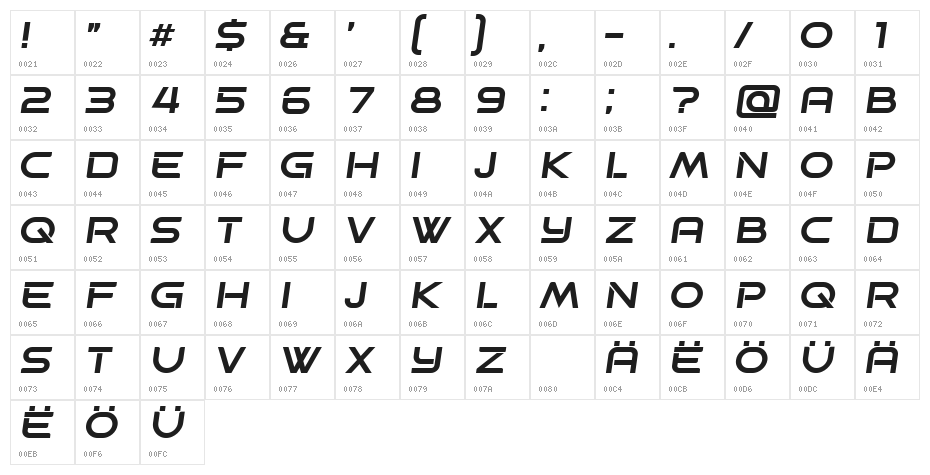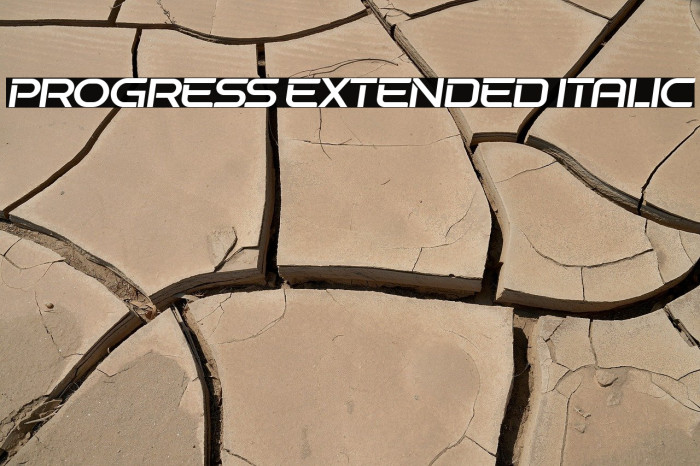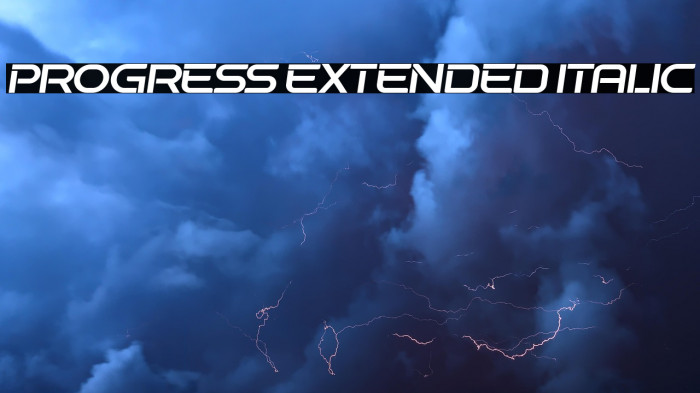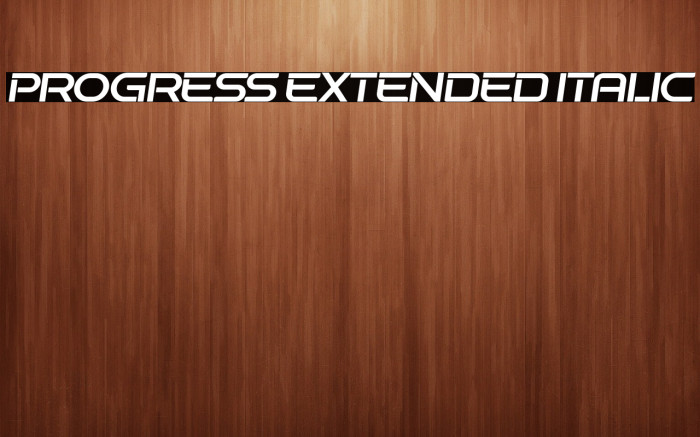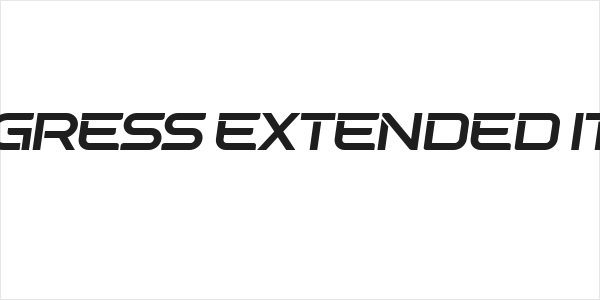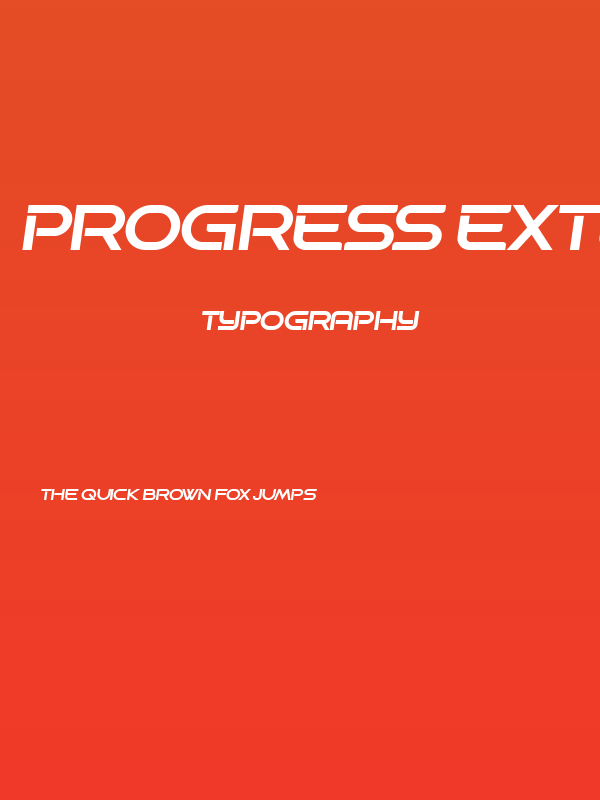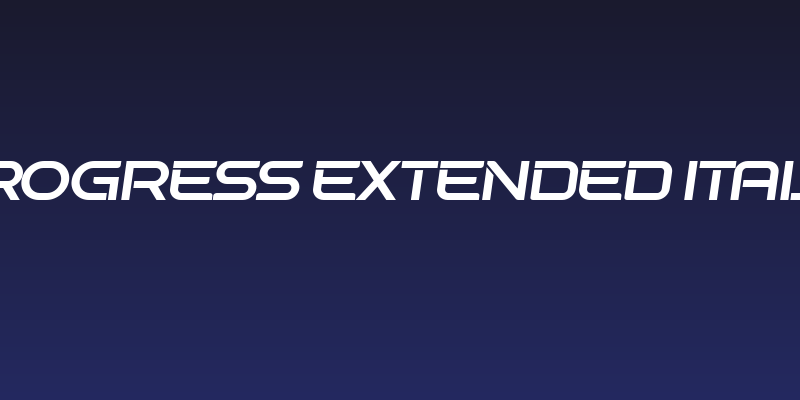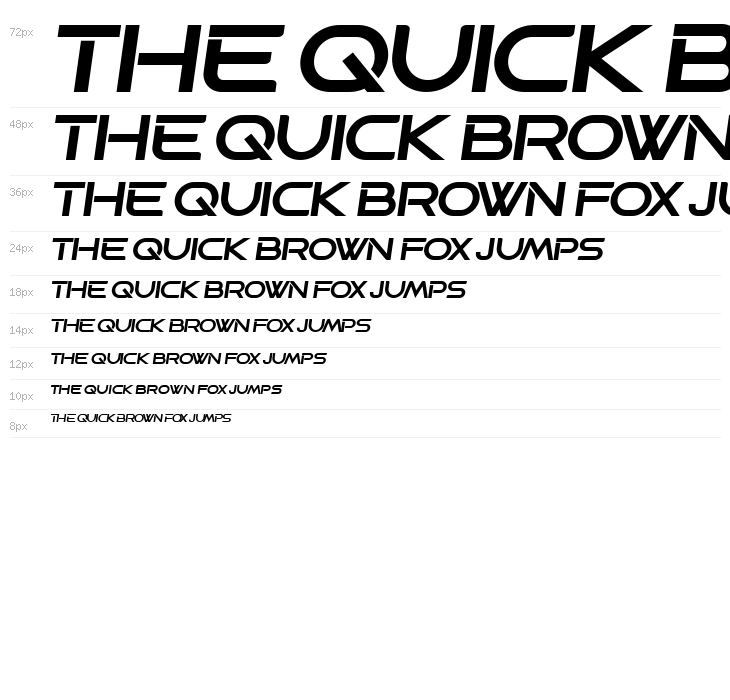
Progress Extended Italic Font
Progress Extended Italic Description
This font features a sleek, modern design with an italicized style that gives it a dynamic and forward-moving appearance. The characters are extended, providing a sense of speed and motion, which is enhanced by the slanted orientation. The strokes are consistent in thickness, offering a medium contrast that maintains readability while adding a touch of sophistication. The overall aesthetic is futuristic and tech-inspired, making it suitable for projects that require a contemporary and innovative look.
| Proposed Projects | Ideal for technology branding, sports team logos, futuristic posters, and automotive advertisements. |